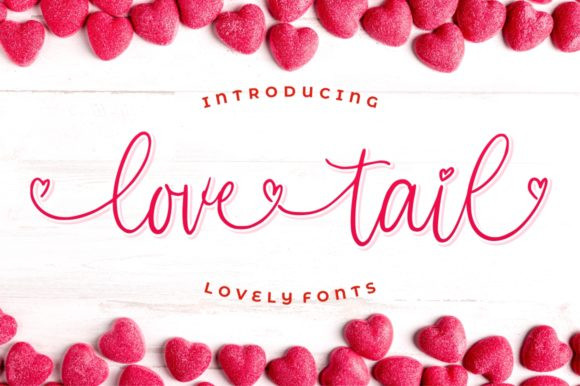
Love Tail Font
The reason Love Tail Font is genuinely exciting is its seamless blend of a fluid, natural handwriting style with exquisite, ornamental swashes and ligatures—the namesake "love tails." These beautiful stylistic connections and embellishments allow the characters to "dance" along the baseline, creating a visually dynamic and highly personalized result. The font is PUA encoded, ensuring designers can easily access its full array of stylistic sets and alternates to maximize its unique charm and romantic appeal.
The Love Tail Font family is typically focused on a single, expressive weight (Regular) that is designed to deliver maximum stylistic impact. The true versatility of this font lies in its rich OpenType features, which include standard ligatures, multiple stylistic sets, and multilingual support. This wealth of extra characters ensures that every design using Love Tail Font has a unique, high-end, and custom-crafted look. For a typeface that adds romance and elegance to your branding, secure your Love Tail Font Free Download today.